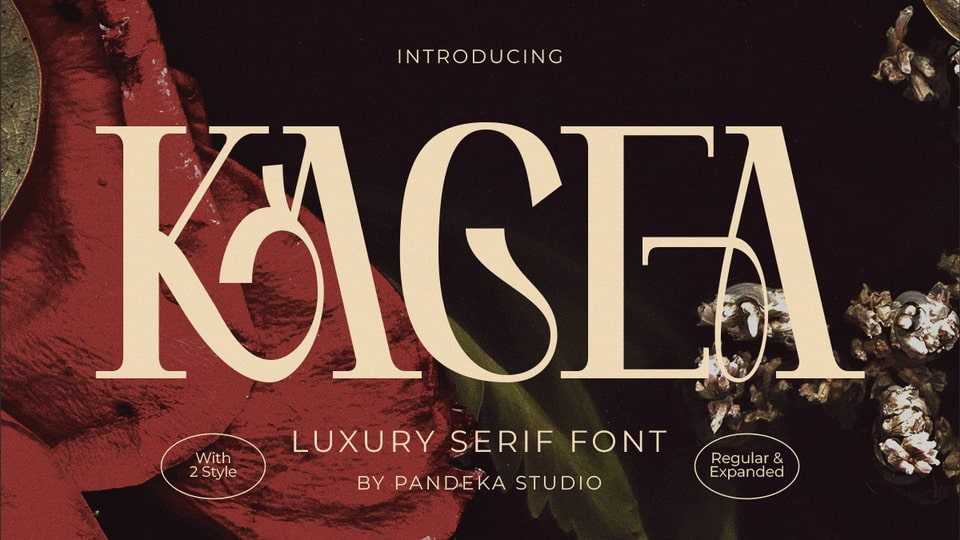
Download Kagea font, a sophisticated serif typeface with refined proportions and chic lettering, ideal for high-end branding, editorial layouts, premium packaging.